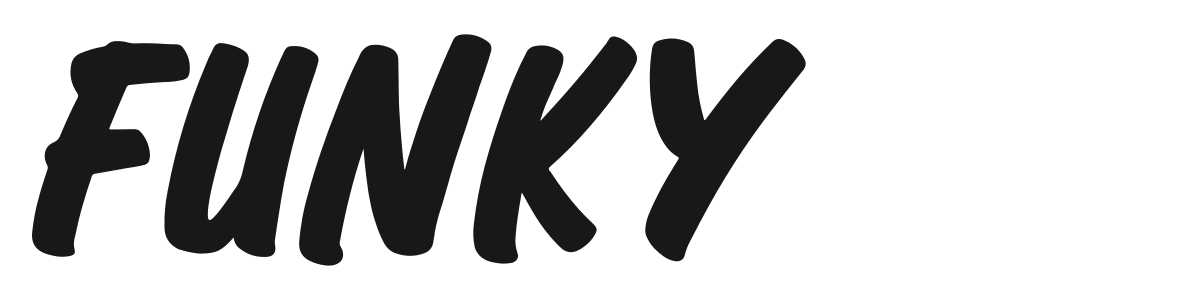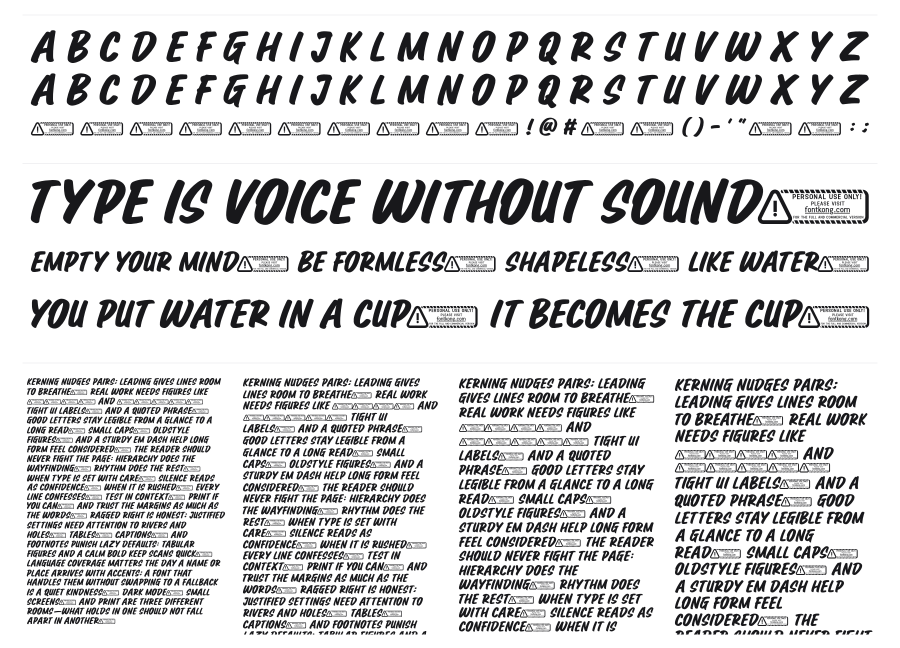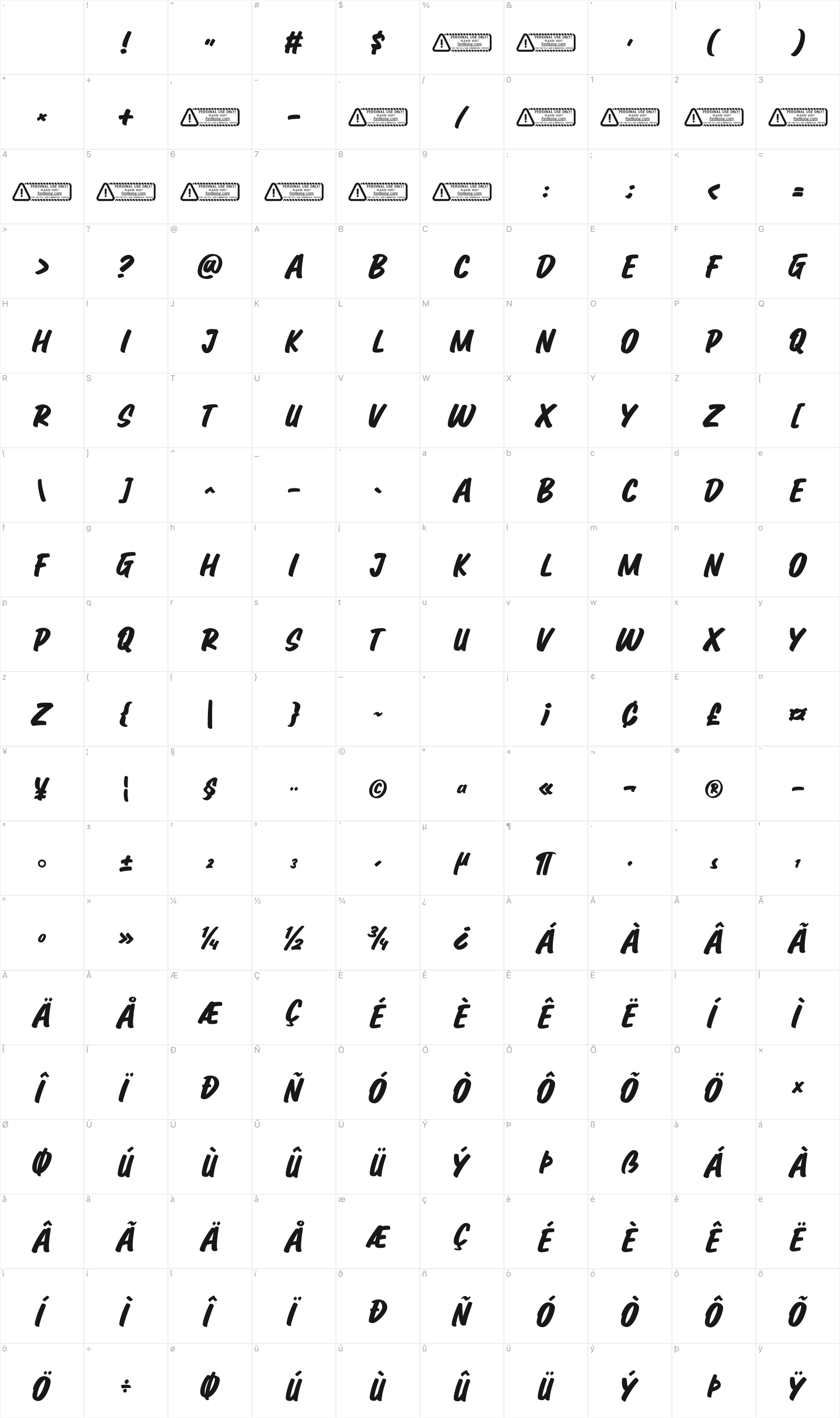
Funky
Funky is a bold, heavily slanted brush script that channels the energy of hand-lettered signage and marker-drawn type. Its thick, textured strokes and informal construction give it an immediate, punchy quality suited to headlines, posters, and packaging. The casual roughness keeps it feeling human rather than mechanical.